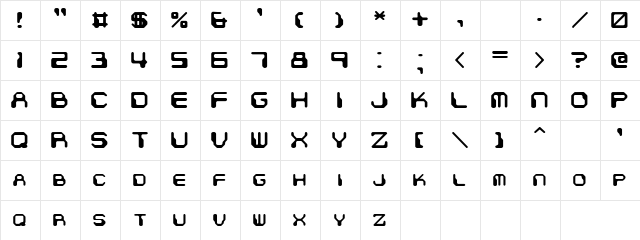
Bulged Bullets Regular
Design Context for Bulged Bullets Typeface
Bulged Bullets offers clean, dependable letterforms without strong stylistic allegiance, making it a practical choice for designers who need flexibility.